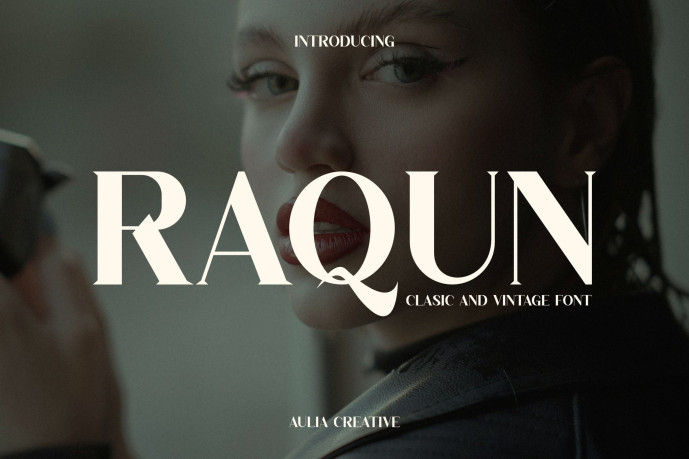
Raqun Font
Designer: Auliacreative
Raqun Font is an awesome and authentic display typeface designed to make a strong visual impact. With its distinctive serif style and elegant character, it brings a refined yet bold look to logos, branding projects, headlines, packaging, and other creative designs. Its unique appearance combines classic sophistication with modern appeal, making it a versatile choice for designers seeking a memorable and professional aesthetic.